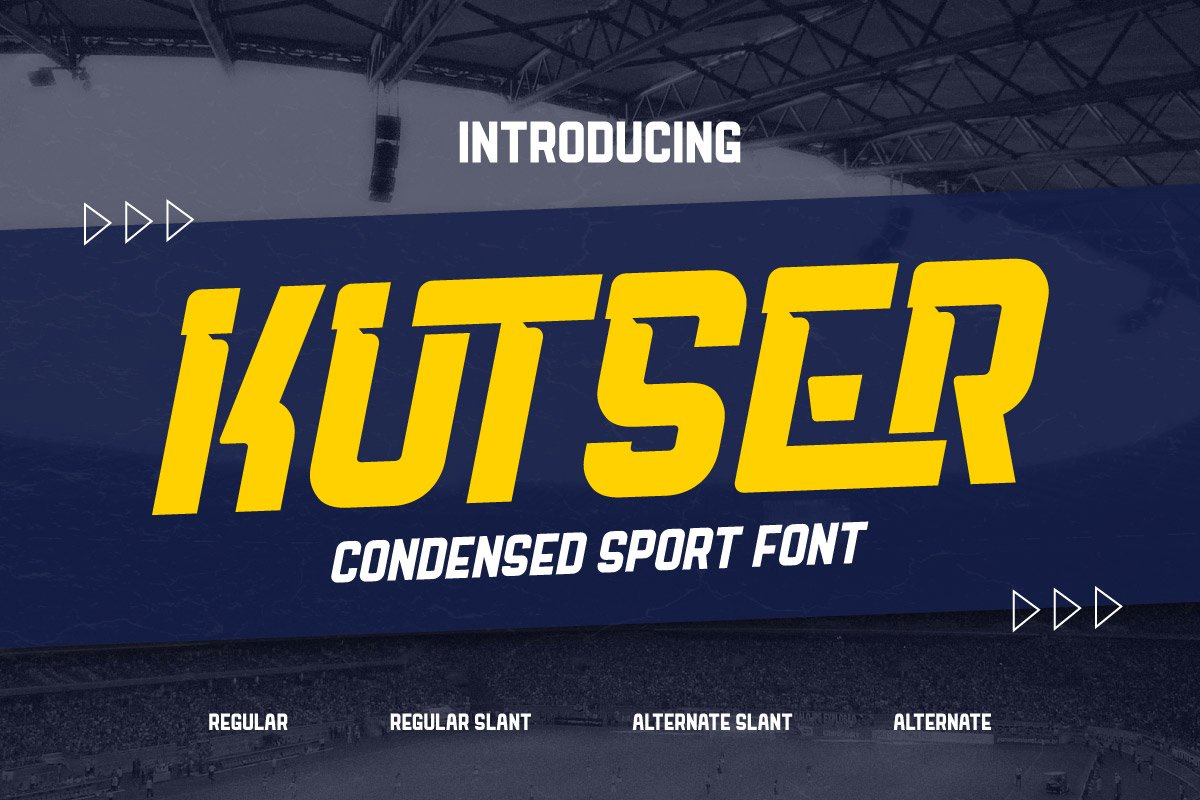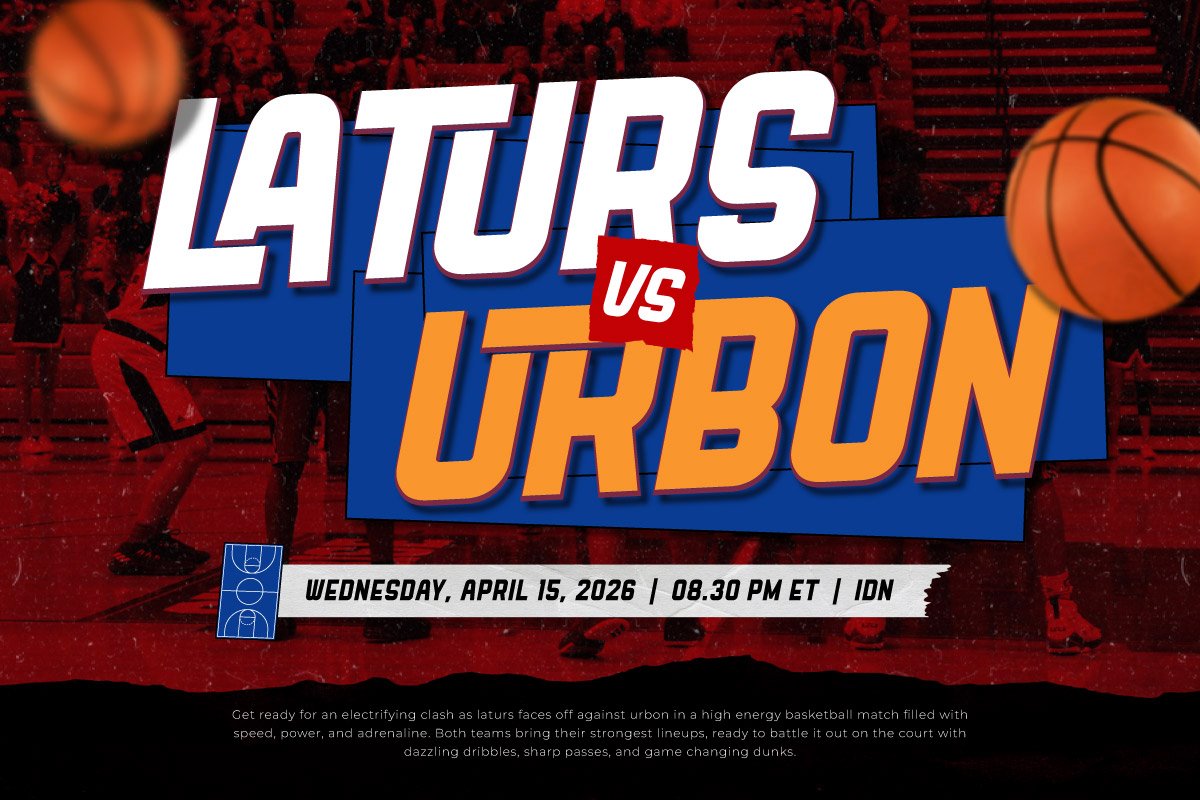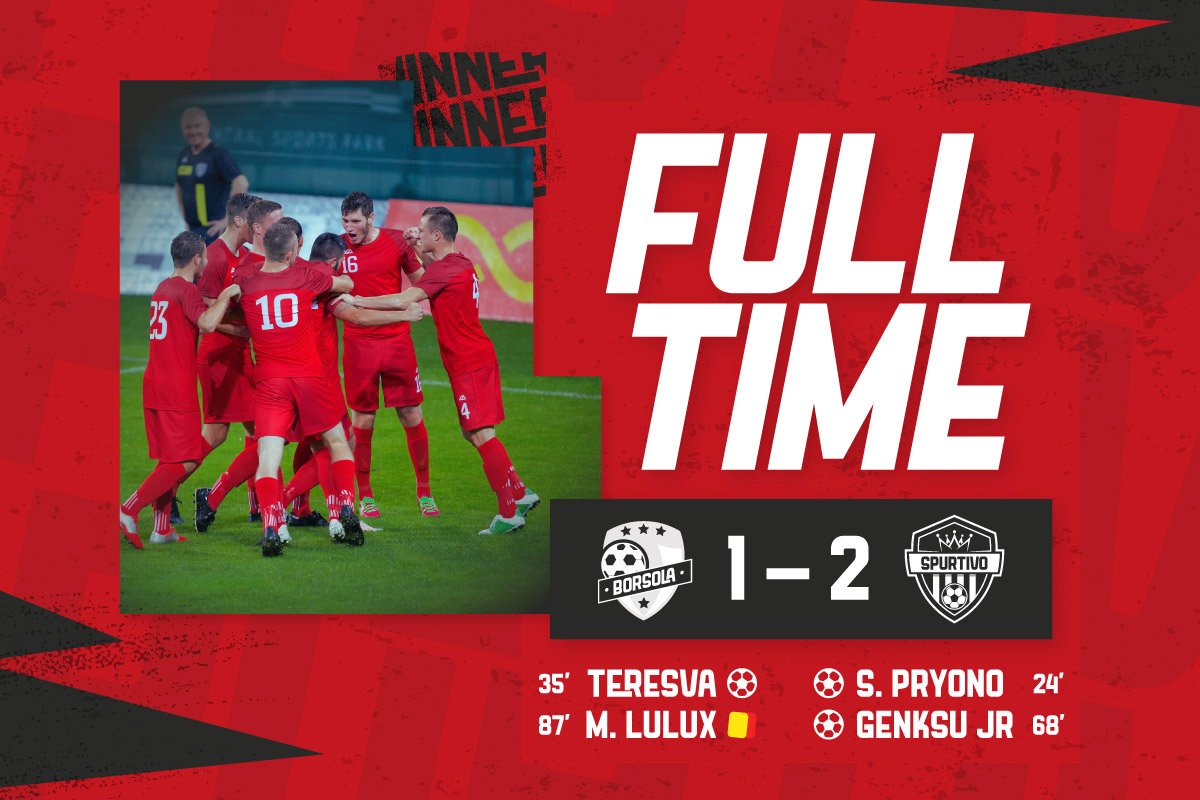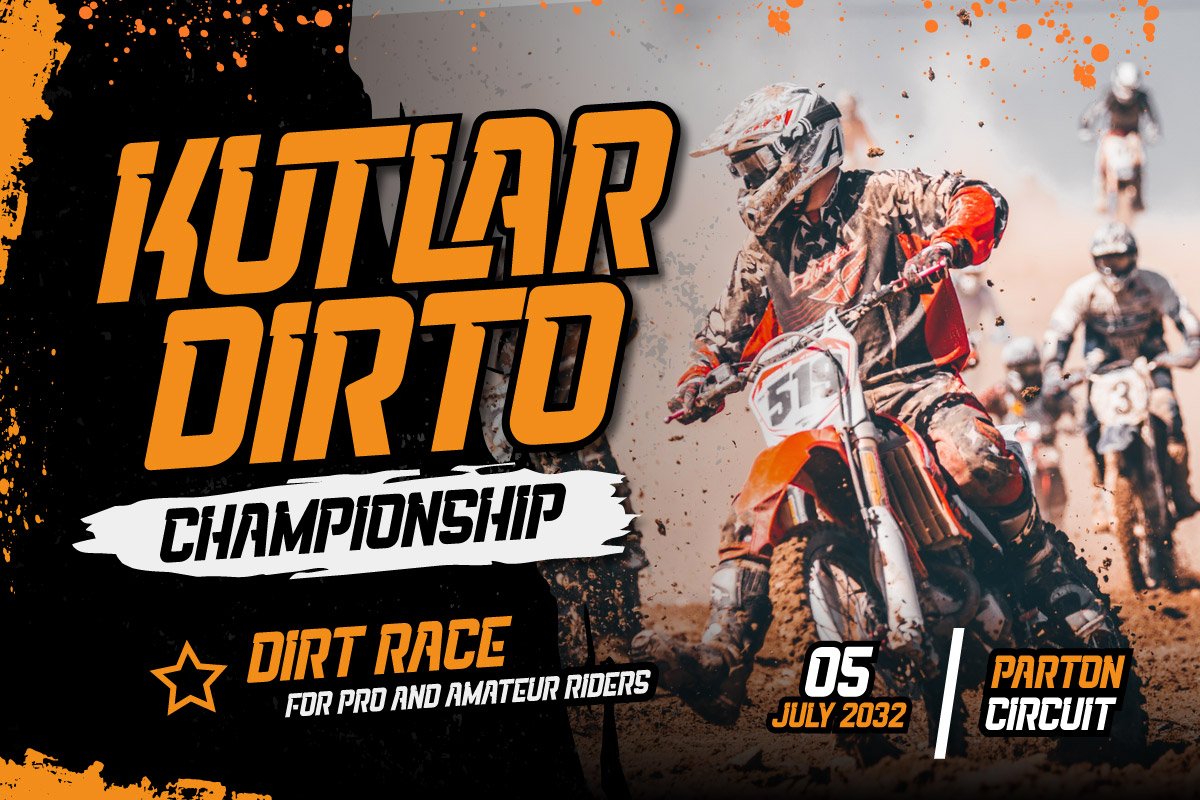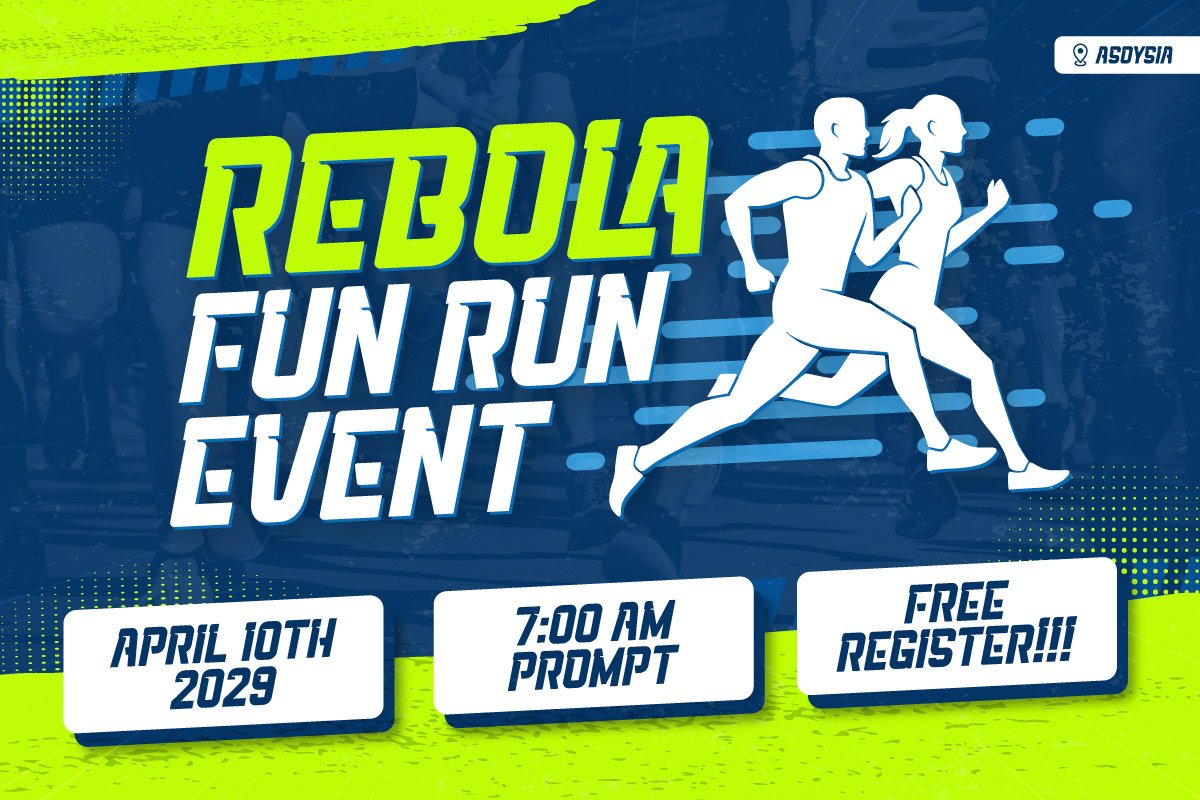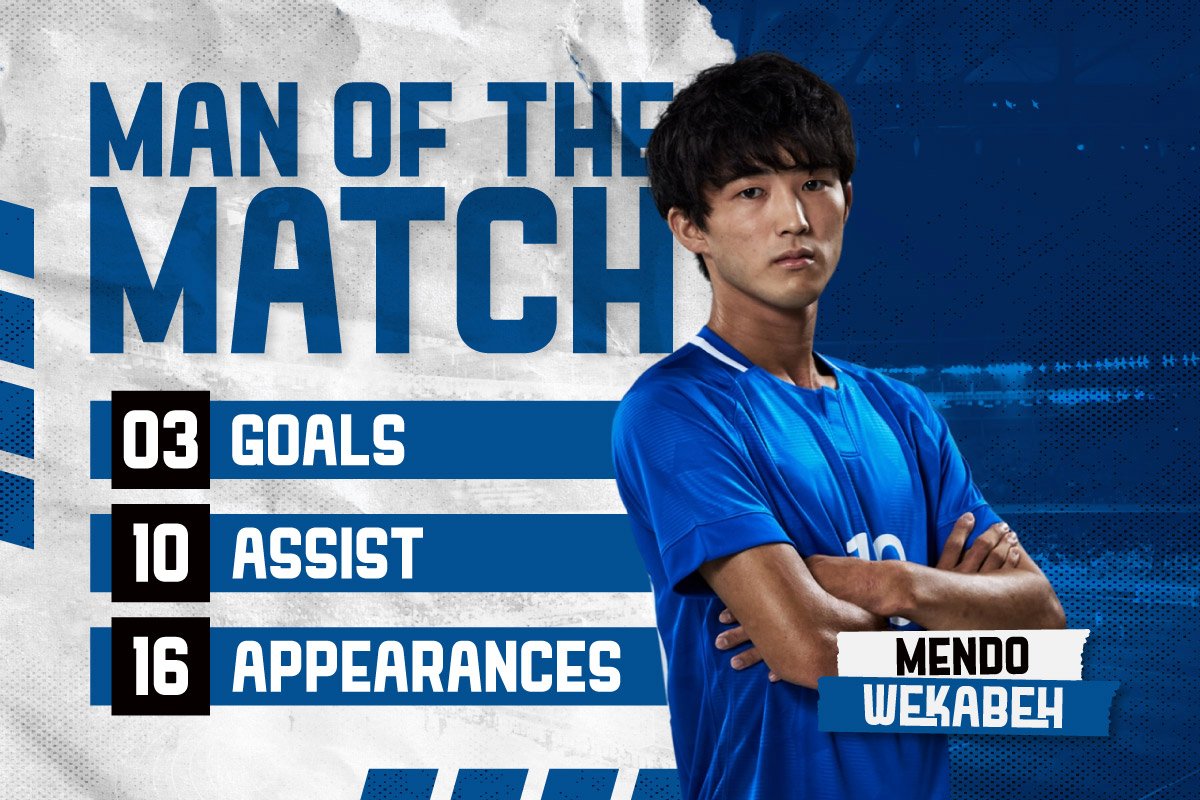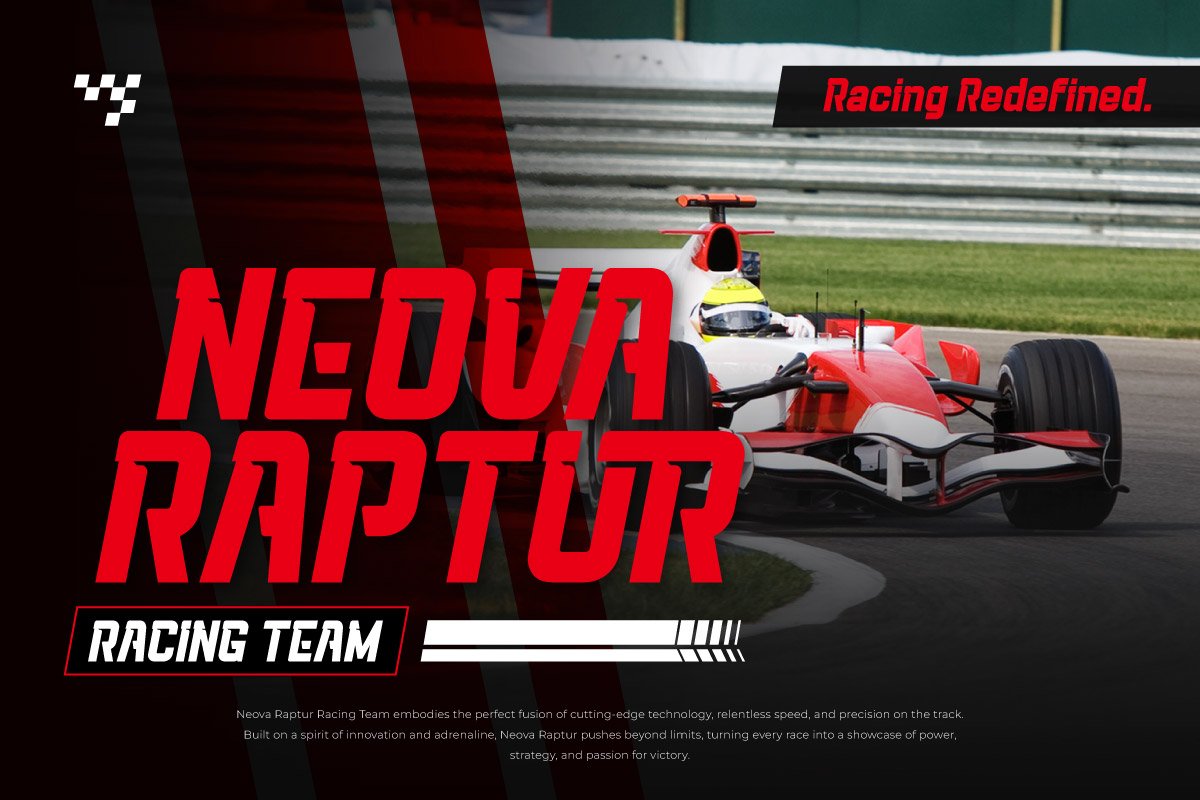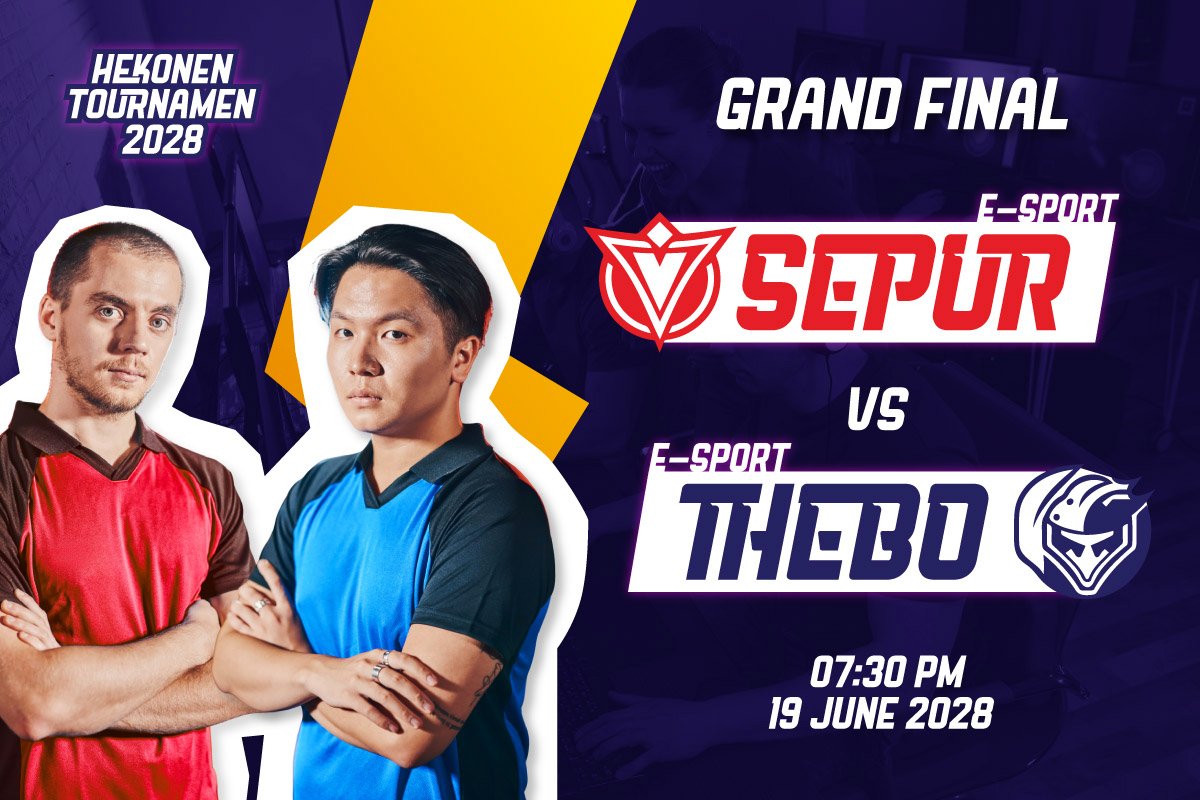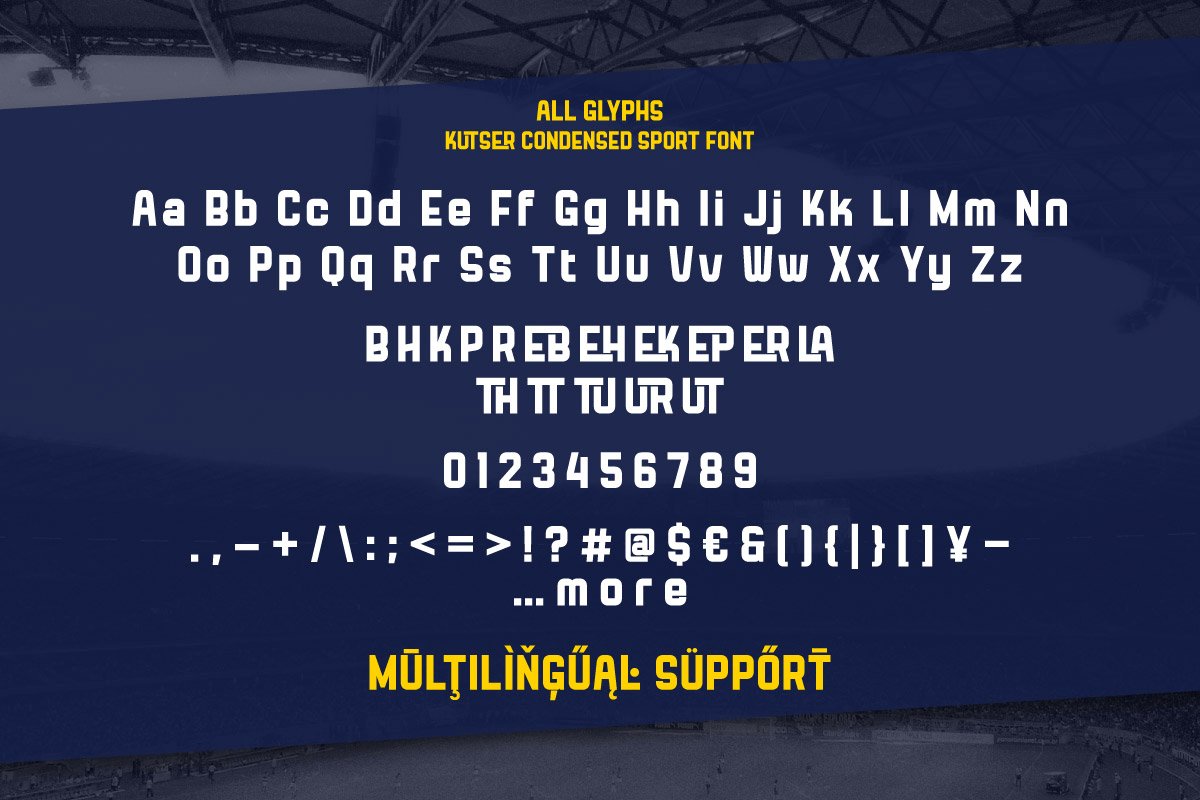
- Kutser – Condensed Sport Font
FUEL YOUR DESIGNS WITH SPEED, POWER, AND COMPETITIVE EDGE.
Kutser is a robust, condensed sport font engineered to capture the relentless energy of athletics and high-speed competition. With its aggressive stance and forward-leaning slopes, this typeface doesn’t just speak—it shouts intensity. Whether for jerseys, logos, or headlines, Kutser delivers a knockout punch of professionalism and motion.
This versatile font family includes four high-impact styles: the solid Regular, the racing Regular Slant, and the distinctive Alternate Slant. Designed for maximum flexibility, these styles can be layered or used individually to create compelling visual hierarchy and a sense of explosive movement. Equipped with full uppercase and lowercase letters, numerals, punctuation, and broad multilingual support, Kutser is the ultimate tool for sports branding, esports graphics, motorsports, and any project that demands a bold, win-focused attitude.
Drive your message home with Kutser—where every letter counts and every line moves.